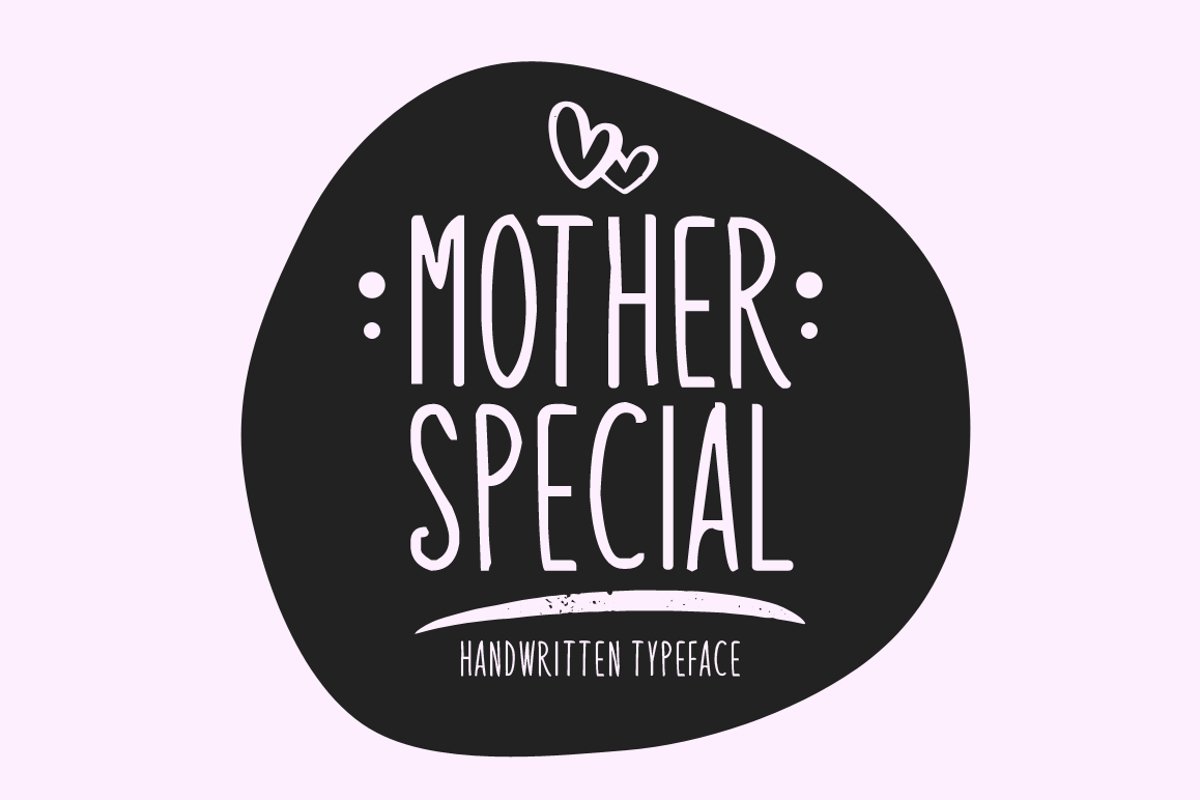
Introducing Mother Special!
Mother Special is a brand new handwritten font. Mother Special is perfectly suited for stationery, logos, t-shirt, paper, print design, website header, photo frame, flyer, music cover, poster, image slider and much more.